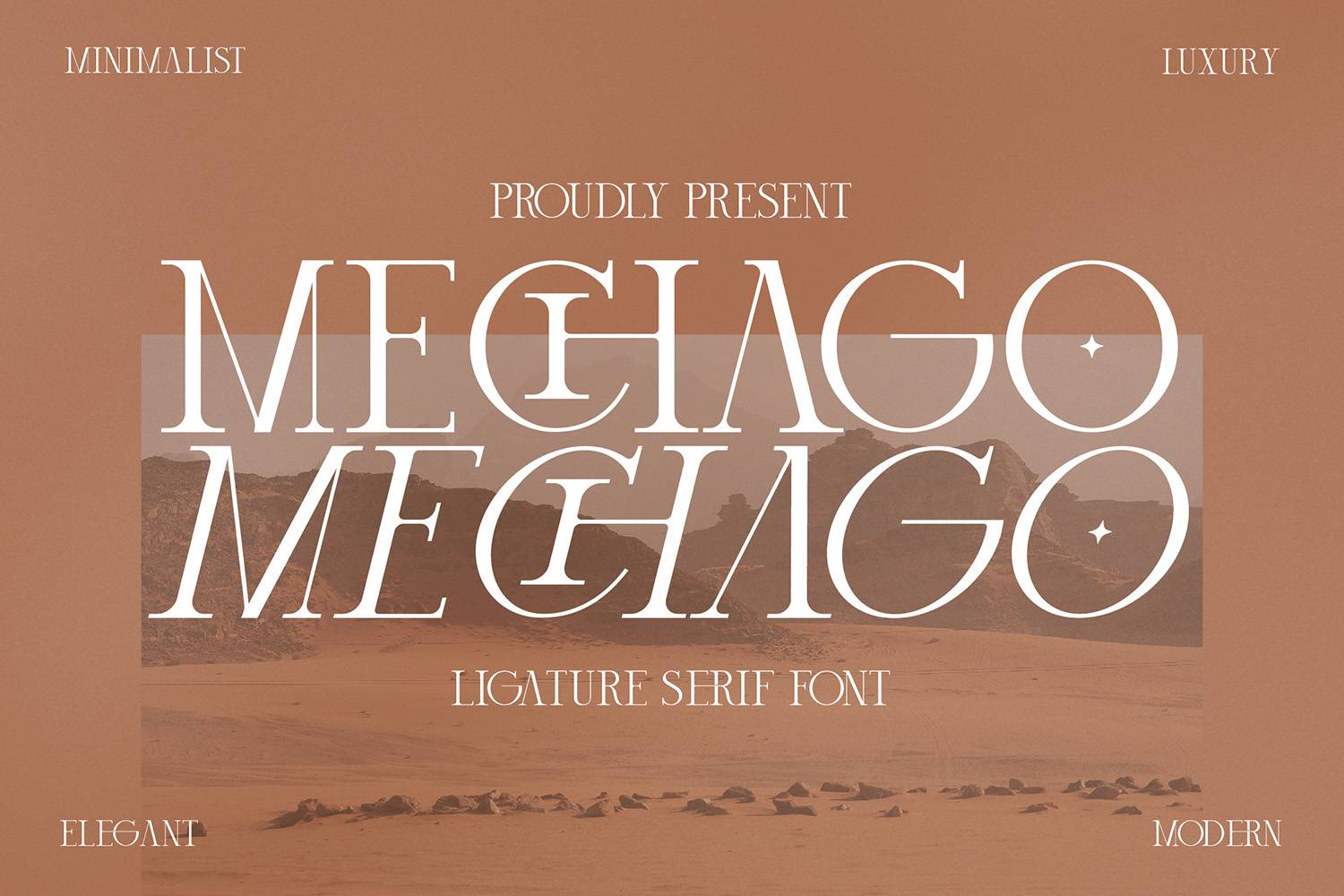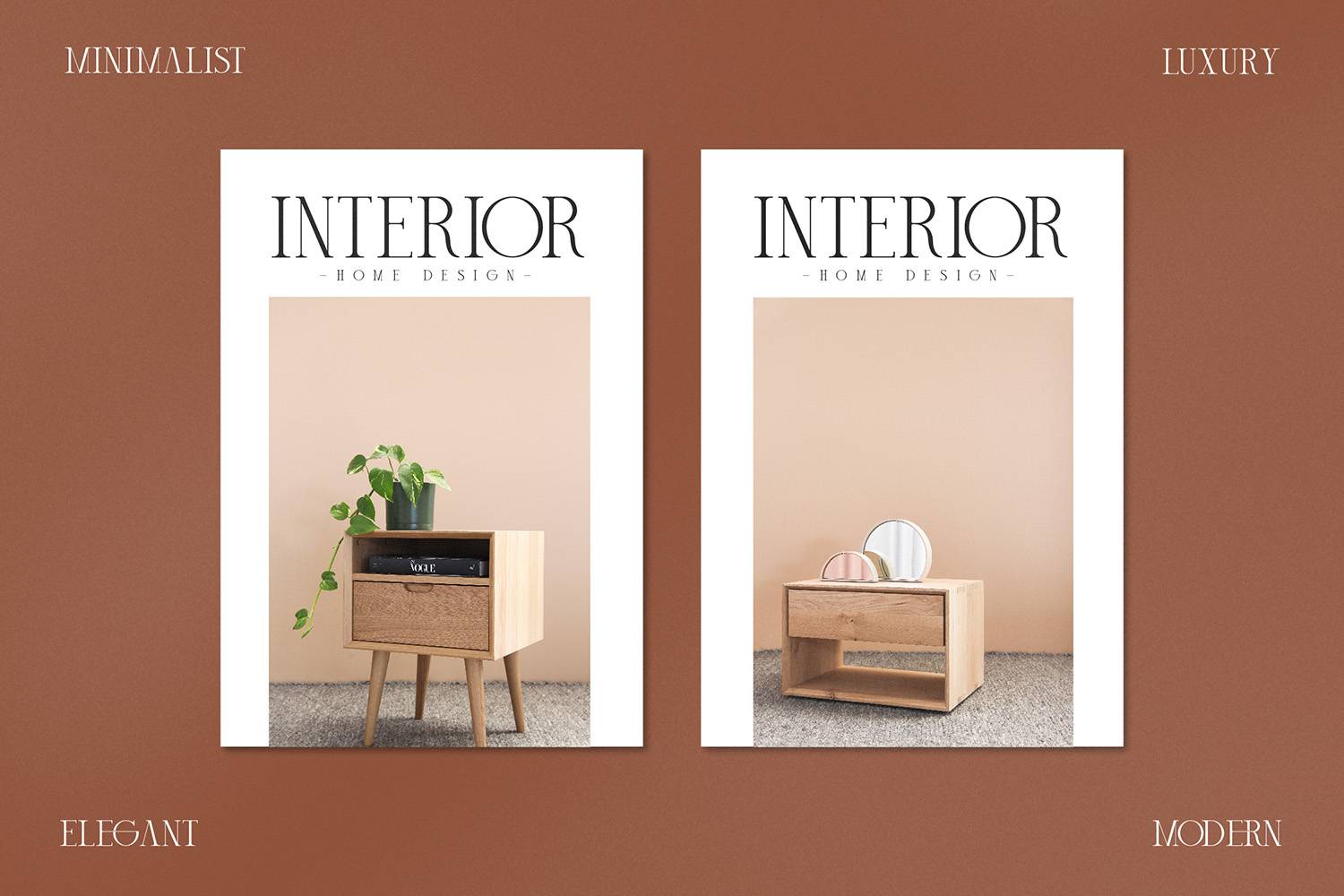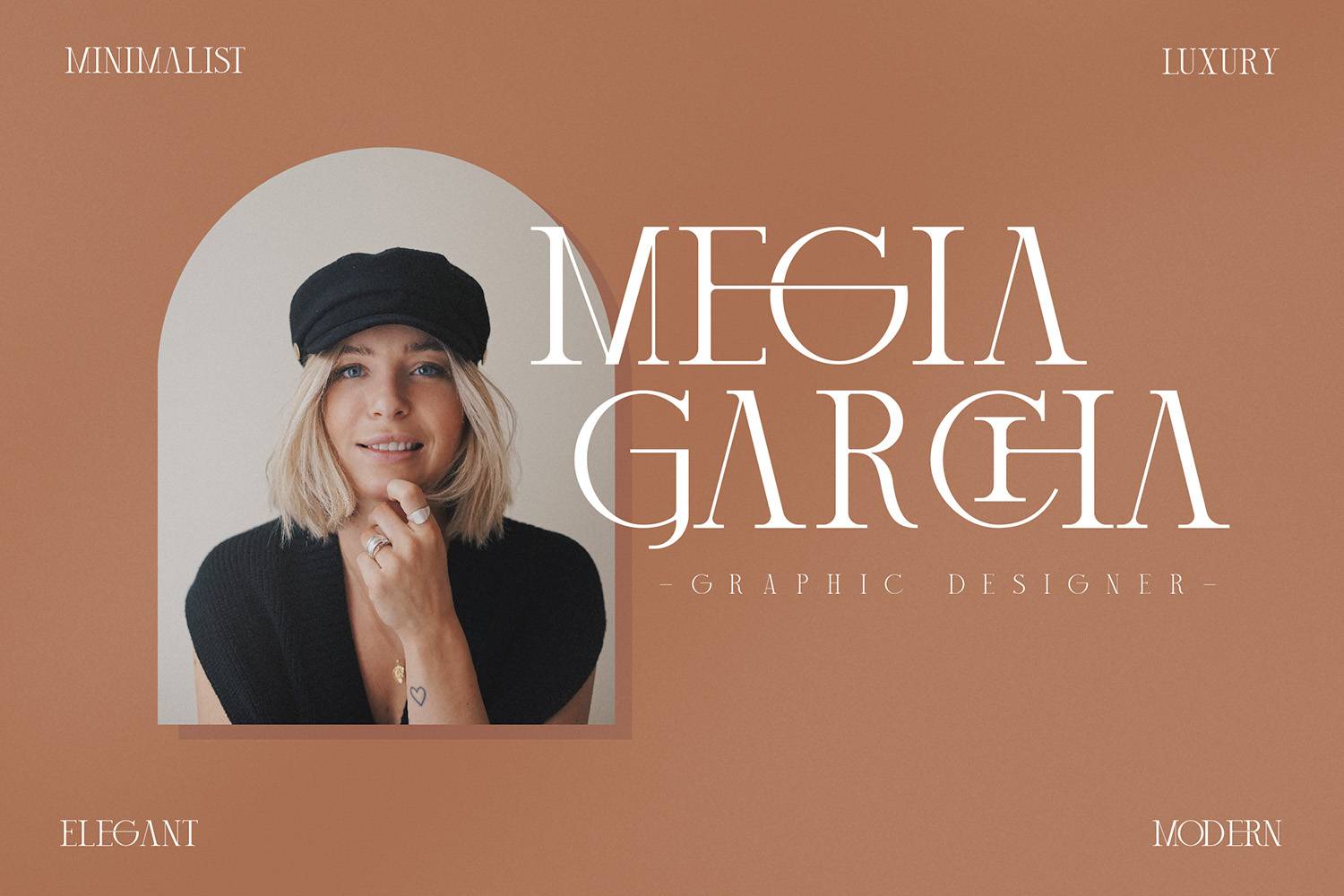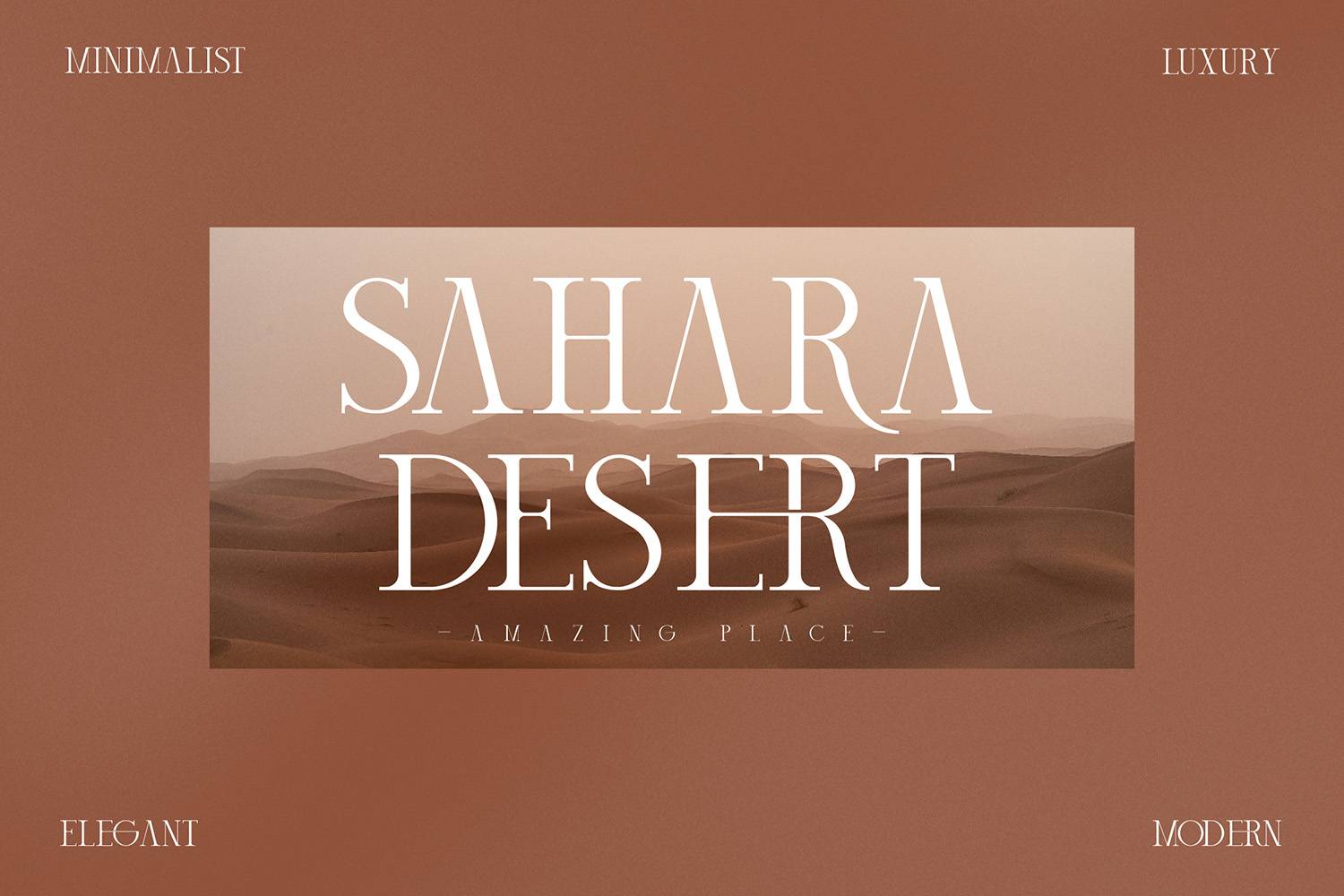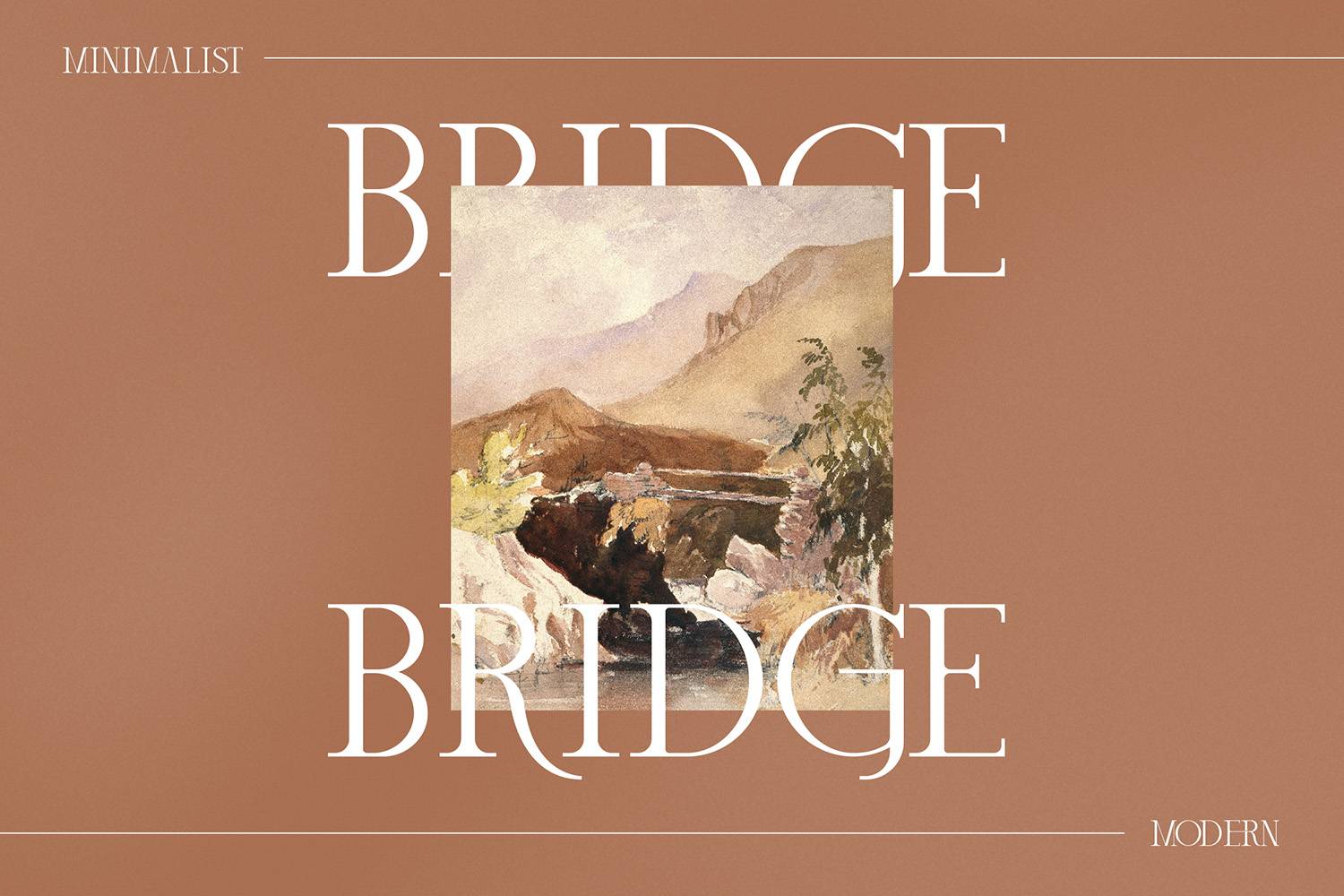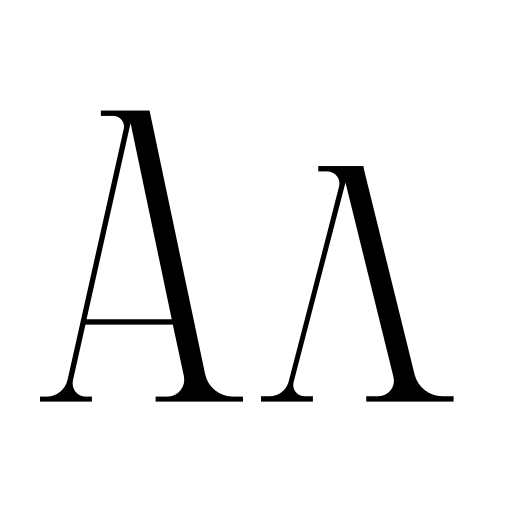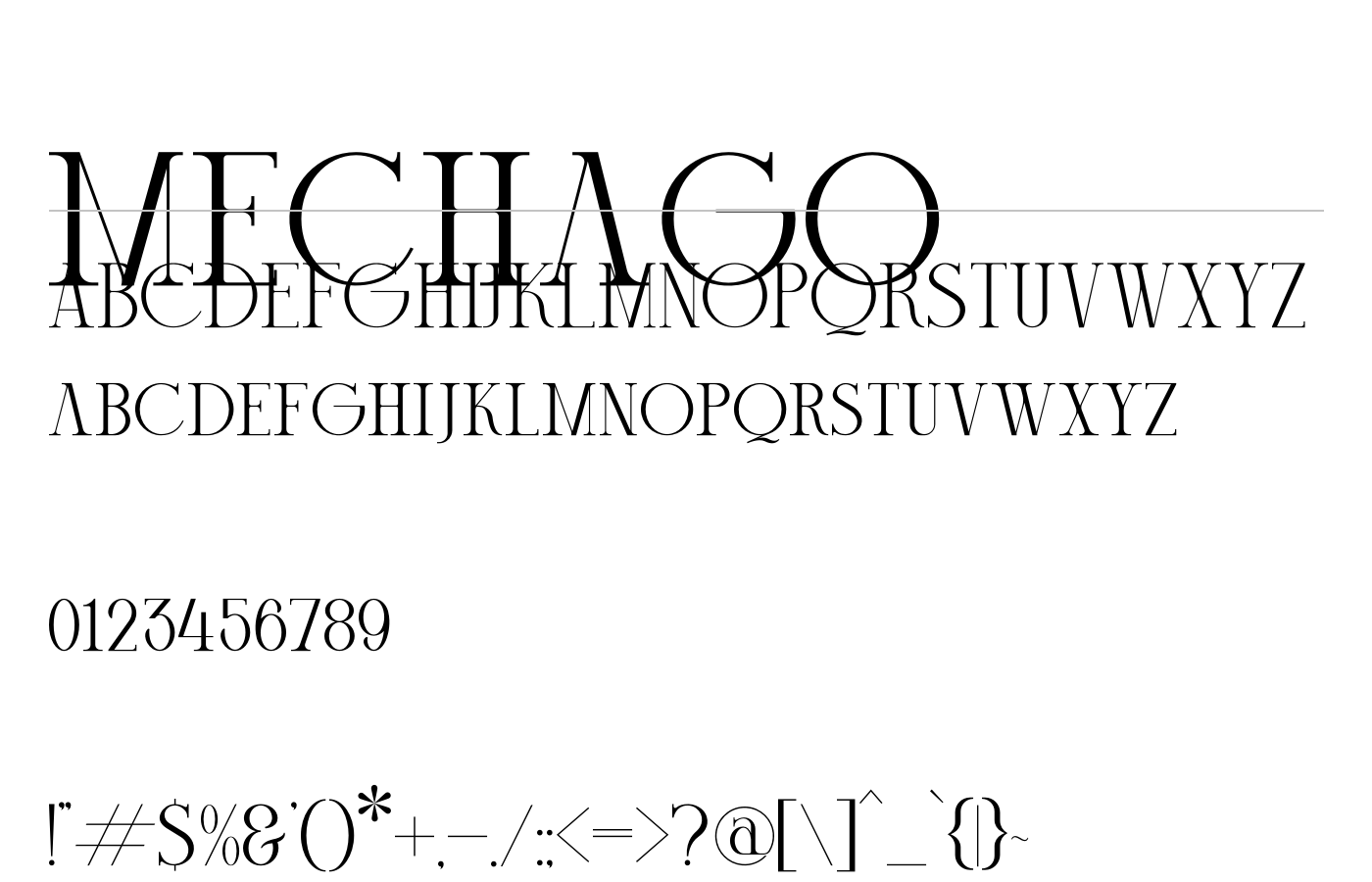
Mechago is an elegant serif font characterized by its thin, high-contrast strokes and refined, classic style that evokes a sense of sophistication and luxury. Its tall, narrow letterforms with delicate serifs and stylish details make it ideal for upscale branding, editorial headlines, and fashion-related projects where a modern yet timeless look is desired. This font works beautifully in settings that demand a sleek and polished appearance, enhancing designs with its graceful presence.
Mechago Font
About Mechago Font